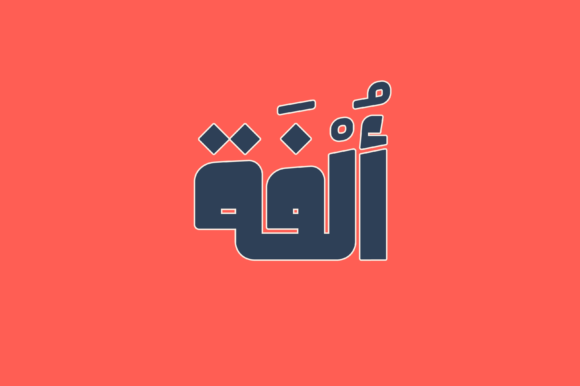
Embark on a typographic adventure with Olfah Font, the Arabic display font that exudes friendliness and casual charm. Dive into a world of captivating designs, where your words dance with grace and elegance. Olfah Font is not just a font; it's an artistic expression that breathes life into your creative visions.
With its meticulously crafted curves and playful strokes, Olfah Font adds a touch of whimsy and warmth to your designs. Its carefully balanced letterforms create a visual harmony that draws the eye and captivates the senses. Experience the magic of typography as your words transform into enchanting visual masterpieces.
Step into a realm of versatility with Olfah Font. Its wide range of applications makes it the perfect companion for your creative endeavors. Unleash your imagination in the world of advertising, where your messages leap off the page with newfound vibrancy. Craft captivating infographics that inform and engage your audience with a touch of visual flair.
Dive into the digital realm and weave your words into captivating web designs. Olfah Font's online presence will elevate your website, making it a destination of visual delight. Bring your print projects to life with the charm and elegance of Olfah Font. Its printed characters will leave a lasting impression, captivating readers with their unique character.
As you explore the creative horizons with Olfah Font, discover a font that not only enhances your designs but also connects with your audience on a deeper level. Its friendly and approachable personality shines through every letterform, creating a sense of warmth and relatability.
With Olfah Font, you'll embark on a typographic journey that transcends the ordinary. Its captivating allure will transform your designs into works of art, leaving an indelible mark on your creative legacy. Embrace the beauty of Olfah Font and unlock the boundless possibilities of visual expression.